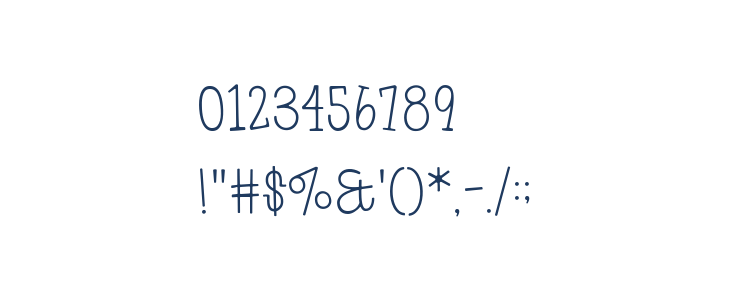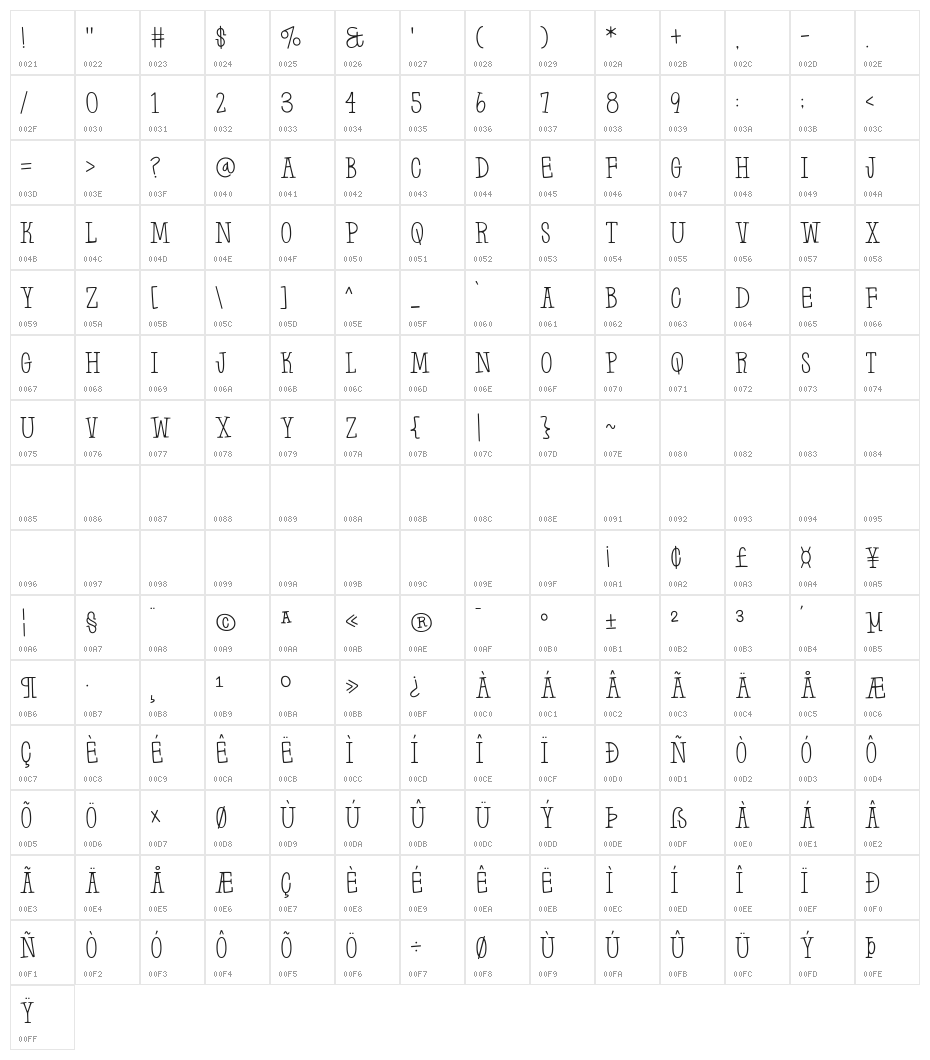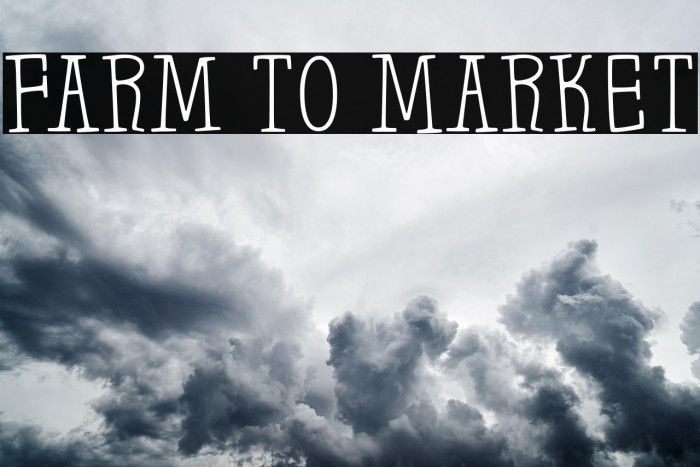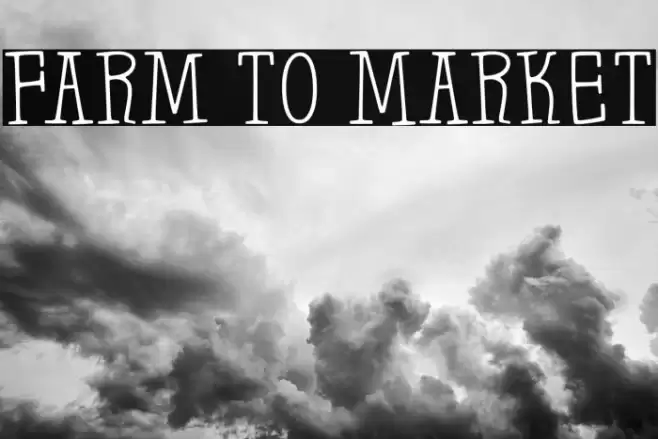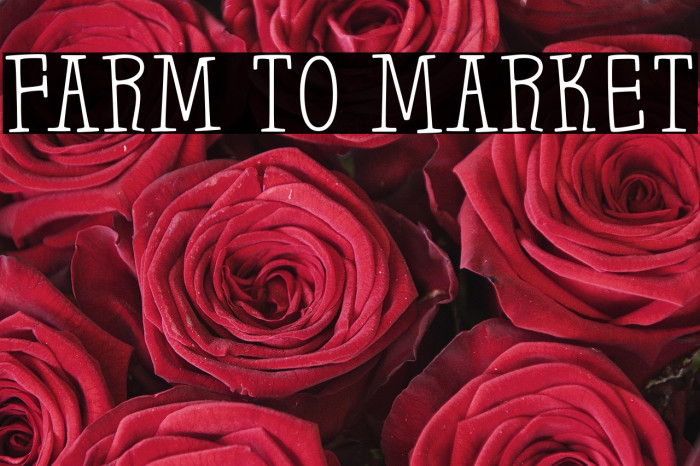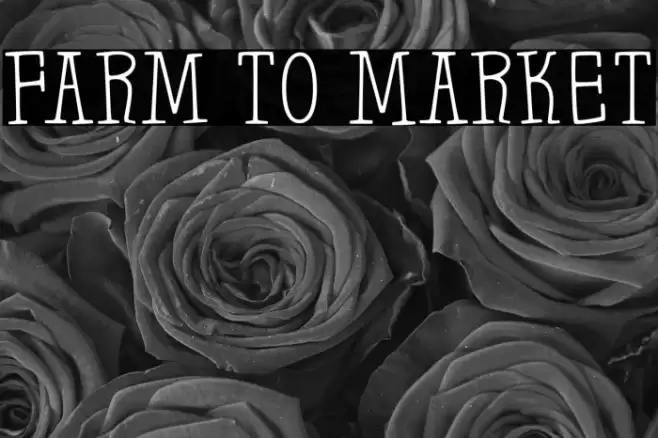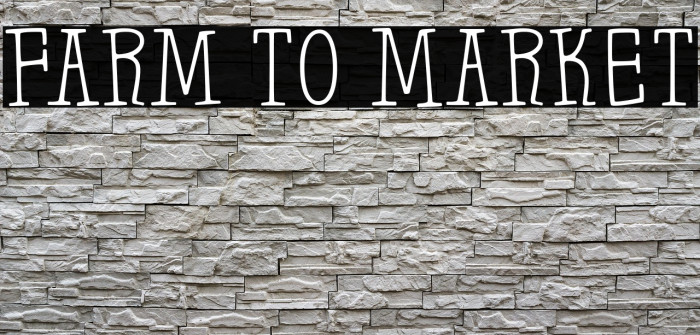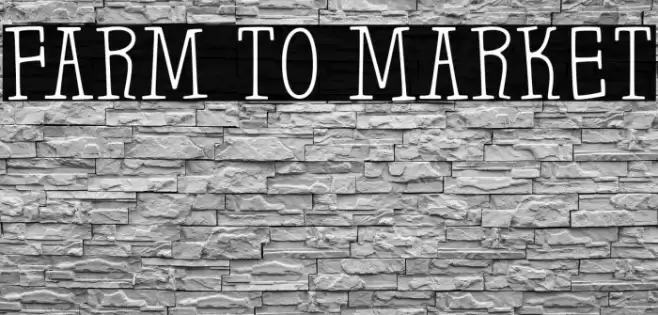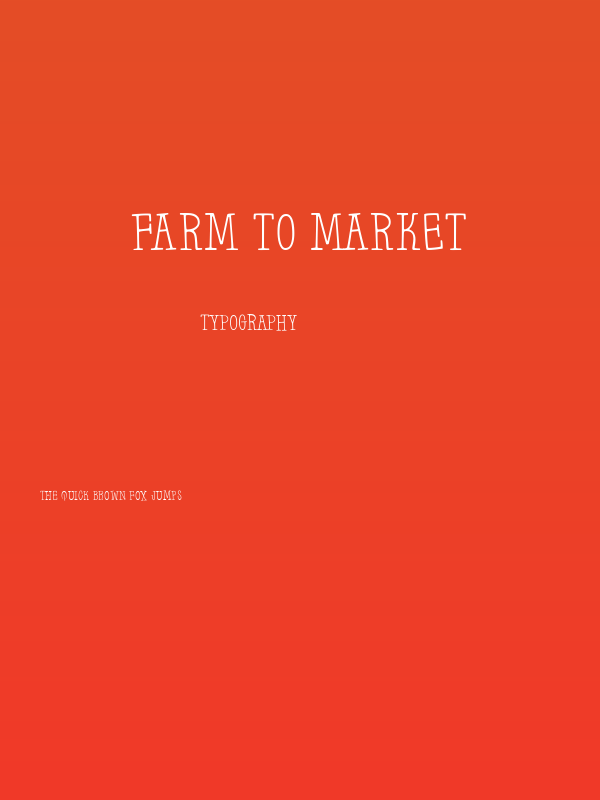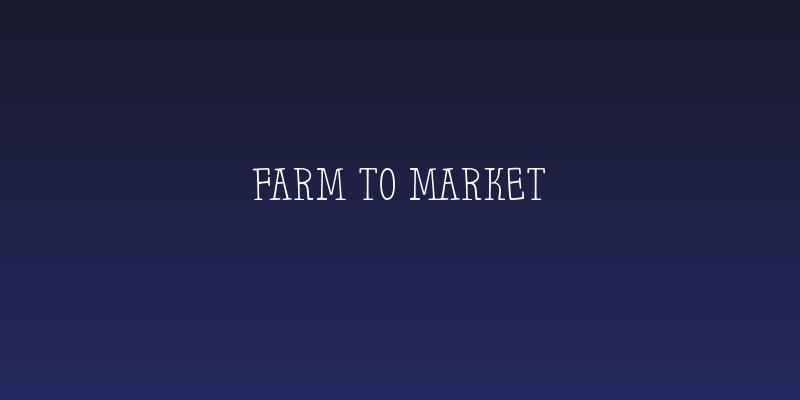
Farm to Market Font
Farm to Market Description
This font features a playful and slightly whimsical design, characterized by its tall, narrow letters with a slight curve. The uppercase and lowercase letters maintain a consistent style, with a hand-drawn feel that adds a touch of personality. The numerals are clear and easy to read, matching the overall aesthetic of the alphabet. Special characters are included, maintaining the same quirky style. The font's unique charm makes it suitable for projects that require a touch of creativity and individuality.
| Proposed Projects | Ideal for children's books, creative branding, playful invitations, and artistic posters. |